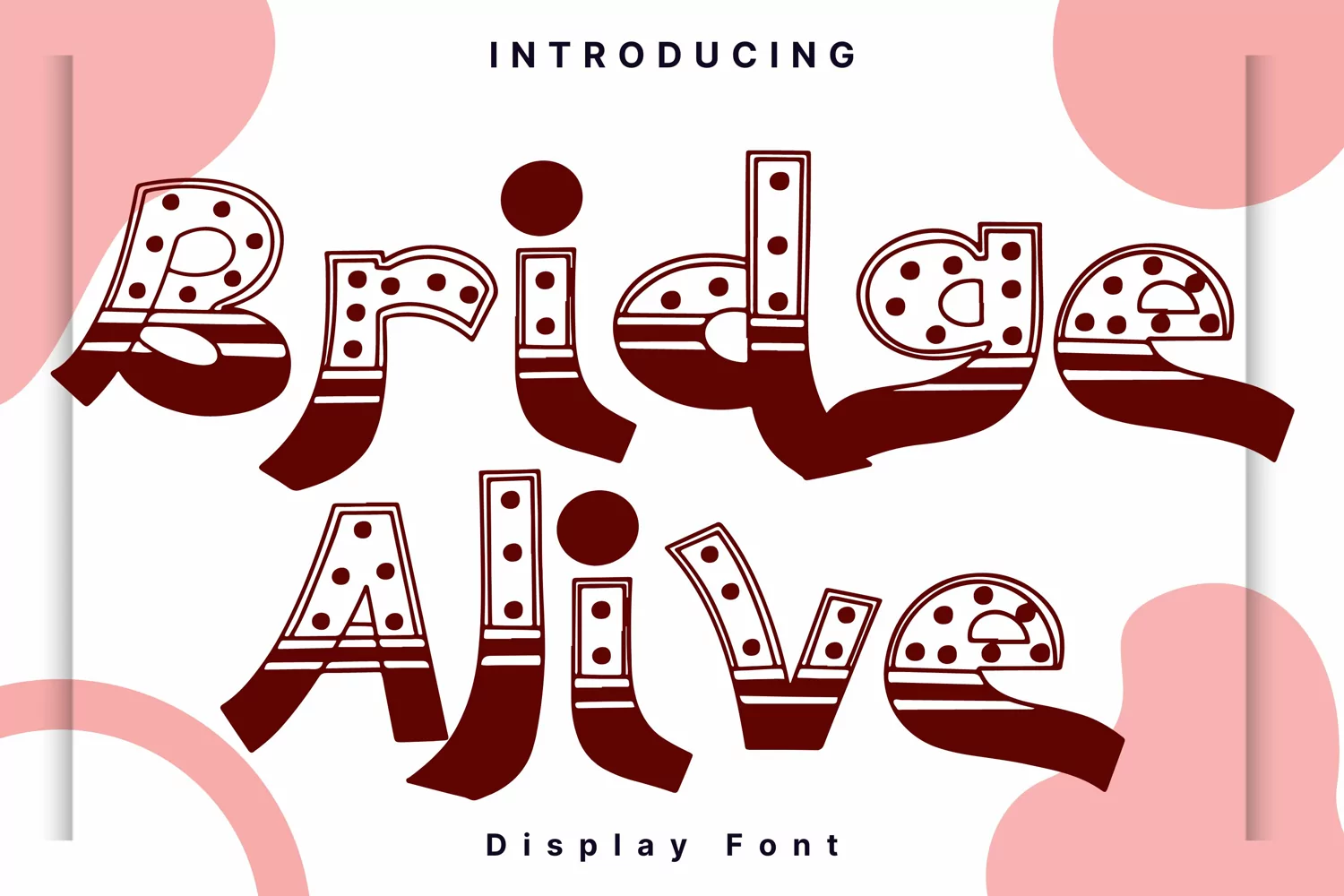
Created By AchiArt
Bridge Alive
BridgeAlive
Bridge Alive Style is a whimsical and clean handwritten font. It can easily be matched to an incredibly large set of projects, so add it to your creative ideas and notice how it makes them stand out!